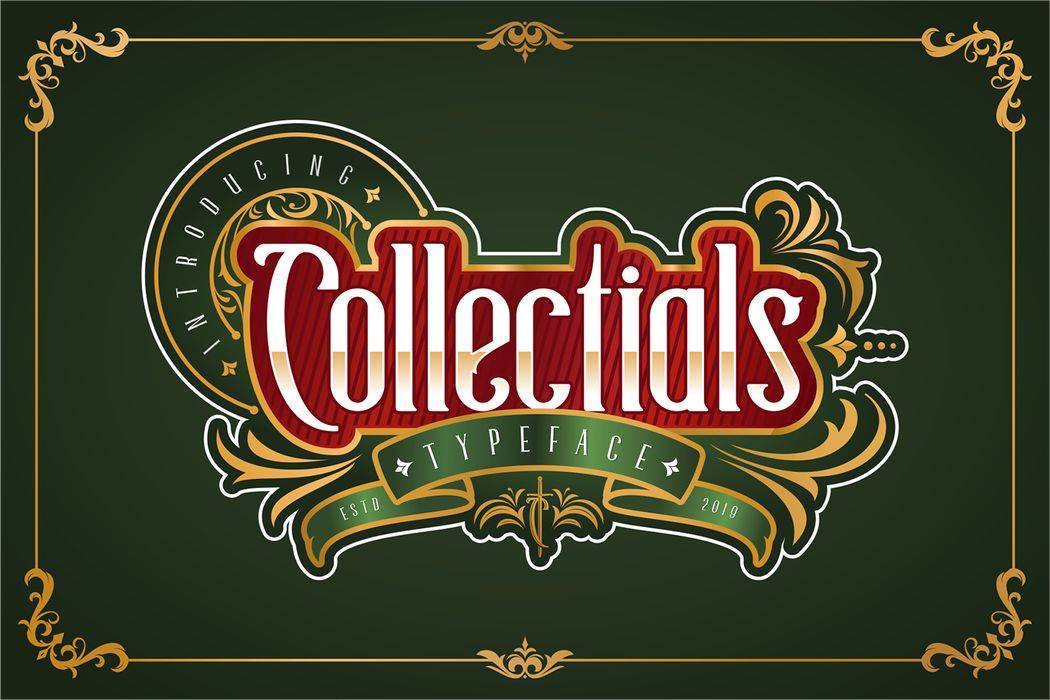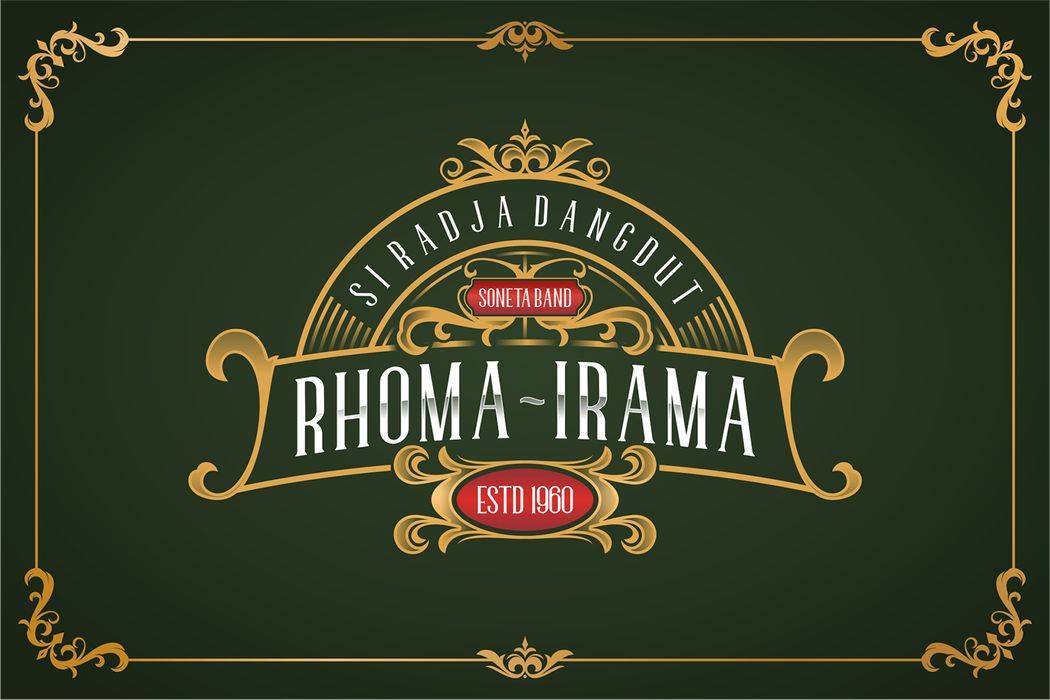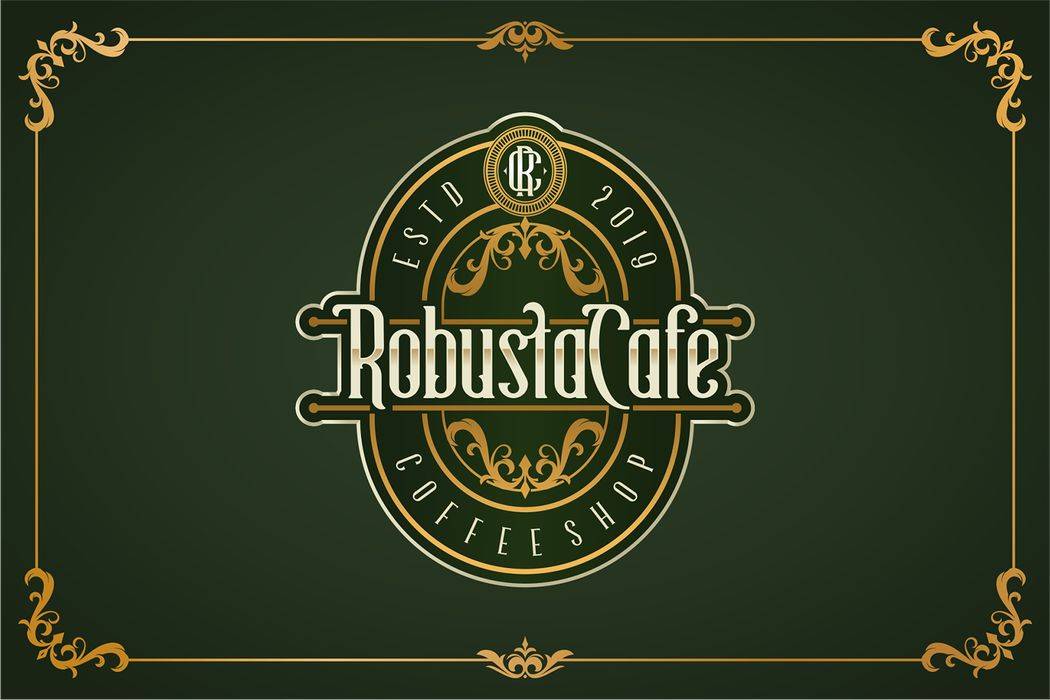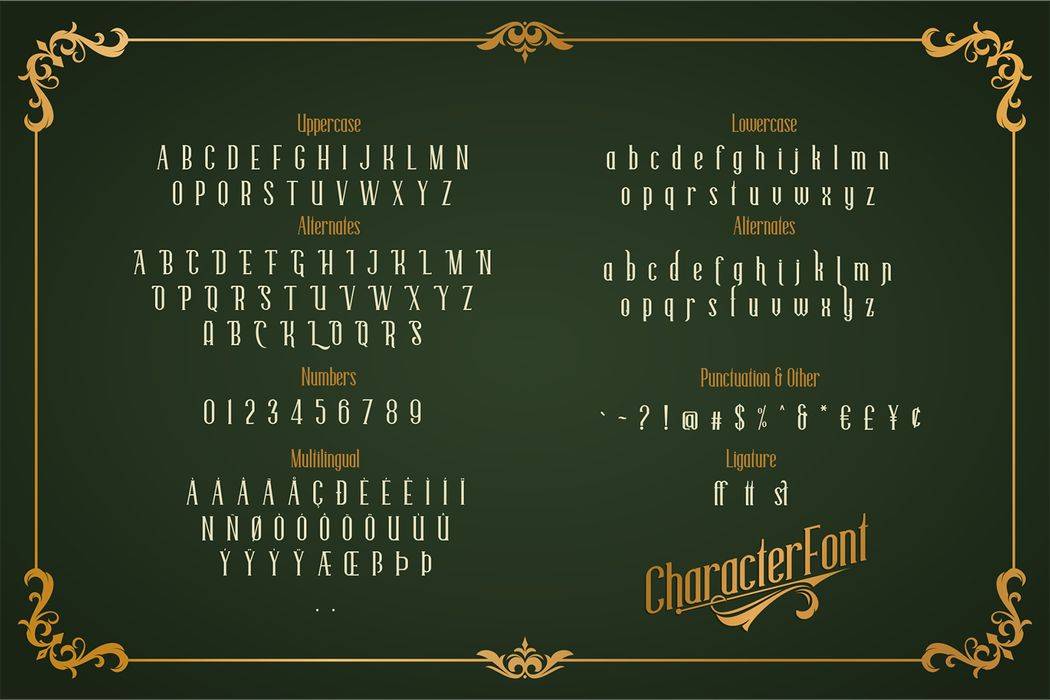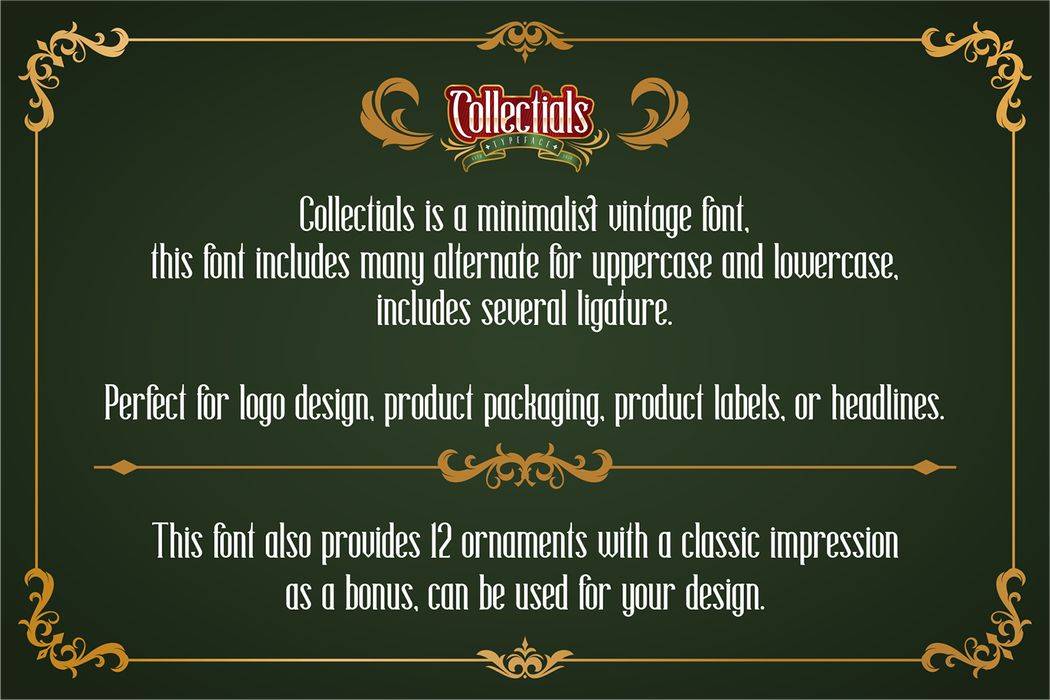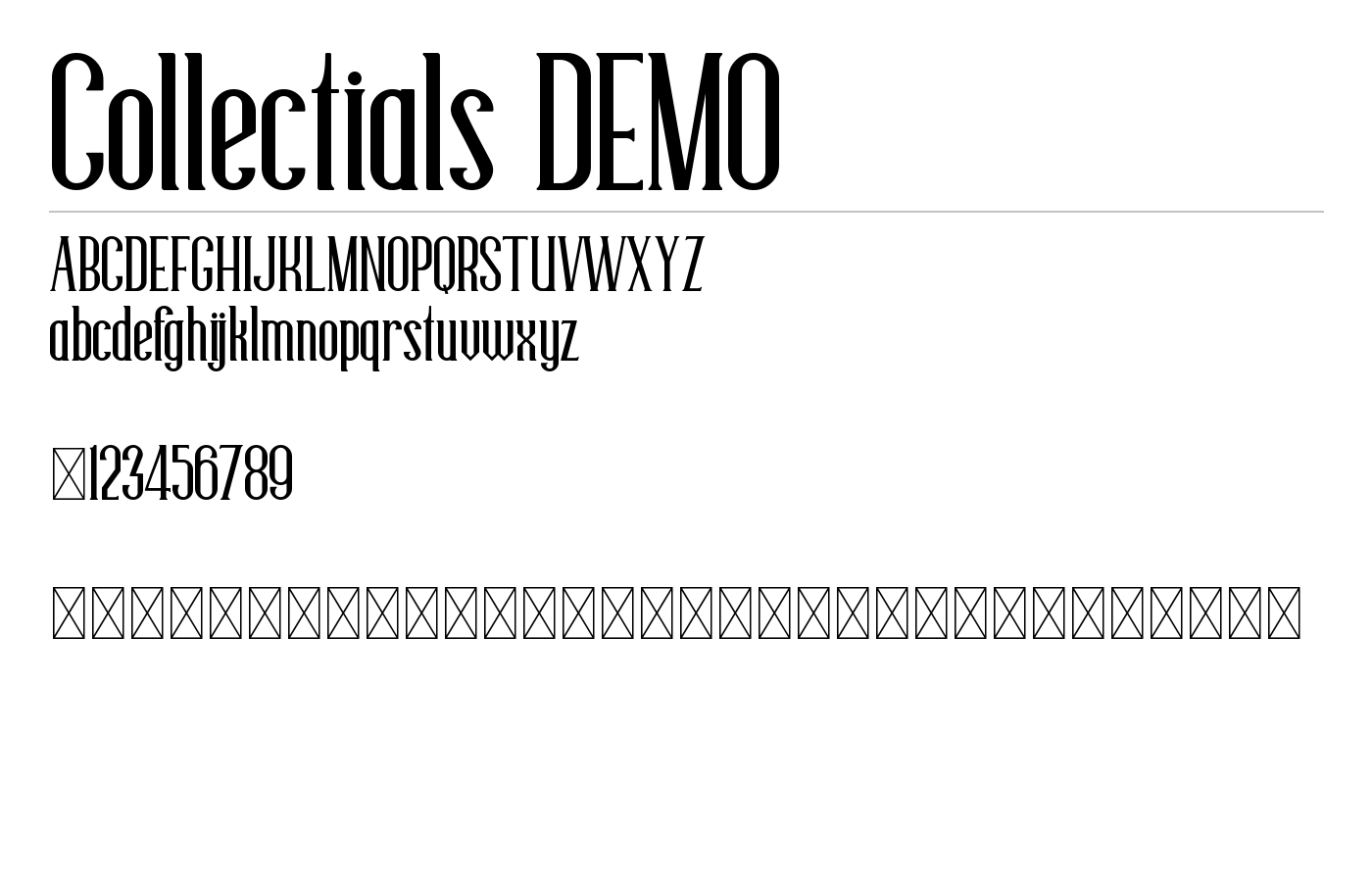
Collectials Classic is a condensed serif font with tall, narrow letterforms and high contrast between thick and thin strokes, giving it a distinctive elegant and vintage feel. Its sharp, bracketed serifs and single-story lowercase letters lend a stylish, sophisticated personality perfect for fashion branding, editorial headlines, and luxury packaging that need a refined yet striking appearance. This font works best in display settings where its unique narrow proportions can add a strong visual impact without overwhelming the design.
Collectials Classic Font
About Collectials Classic Font